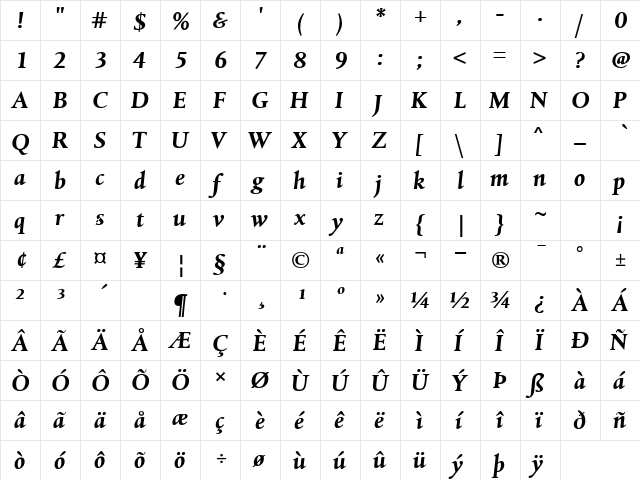
Design Context for Albertina Dtl Bold Italic Typeface
Albertina Dtl Bold Italic offers clean, dependable letterforms without strong stylistic allegiance, making it a practical choice for designers who need flexibility. The dynamic lean of this cut emphasises speed and emphasis in any layout. The heavy weight commands attention and anchors typographic hierarchies.
Pro Tip: Try Albertina Dtl Bold Italic for annotation and caption copy alongside an upright companion — the contrast in angle creates a dynamic but ordered typographic system.